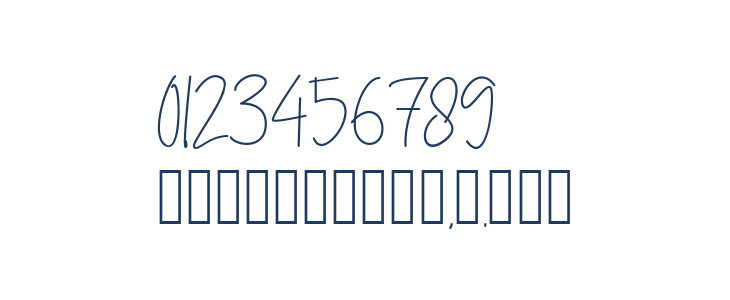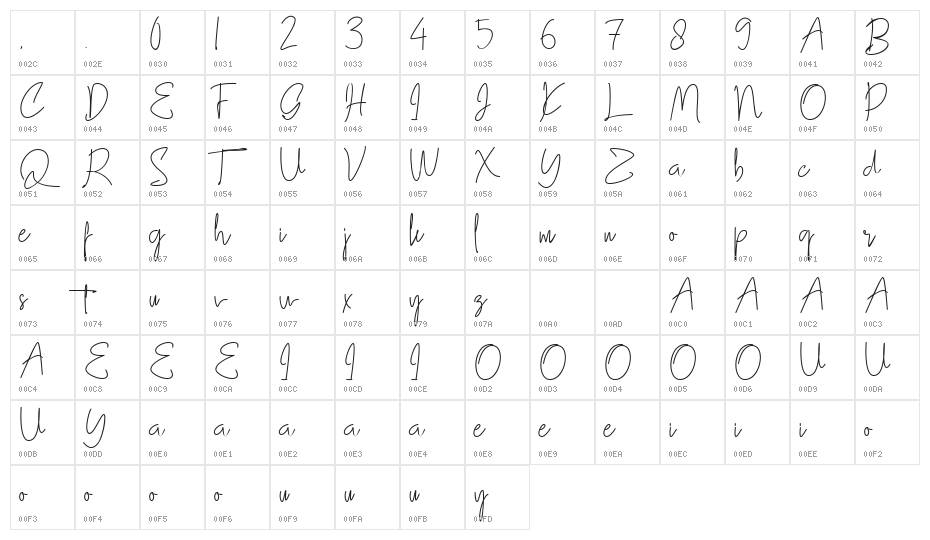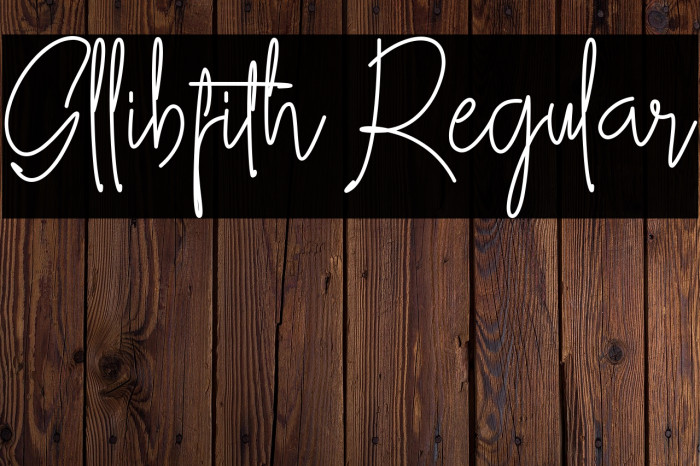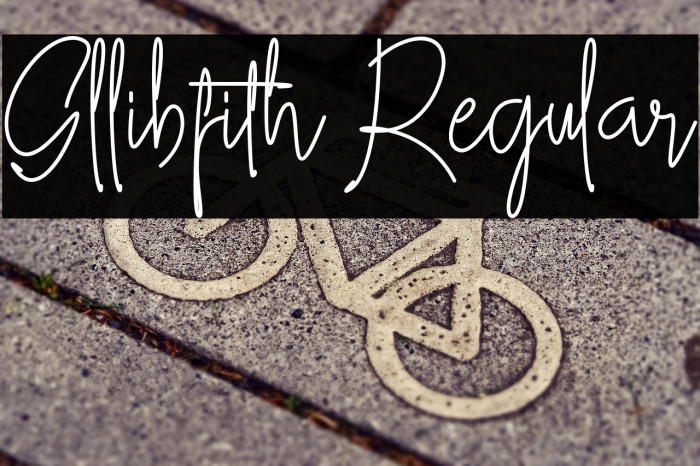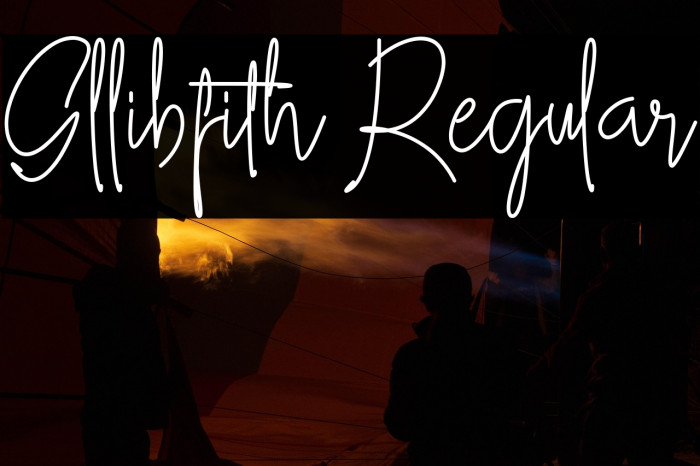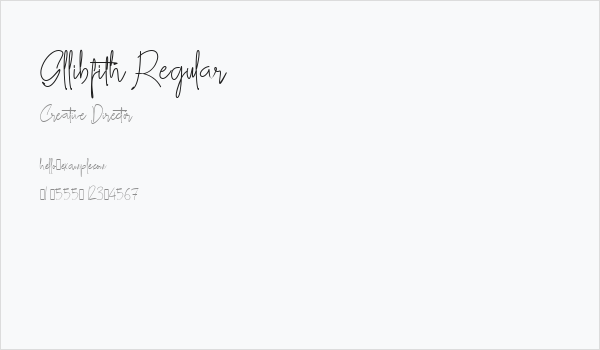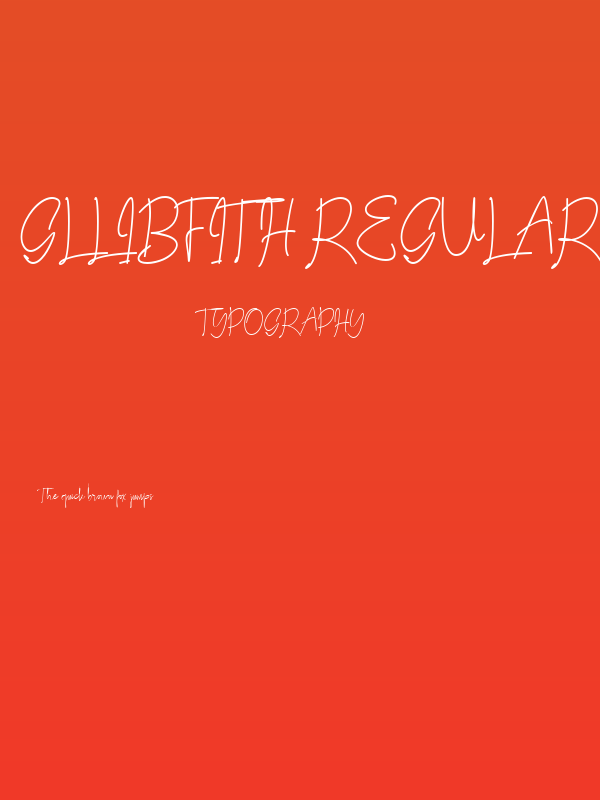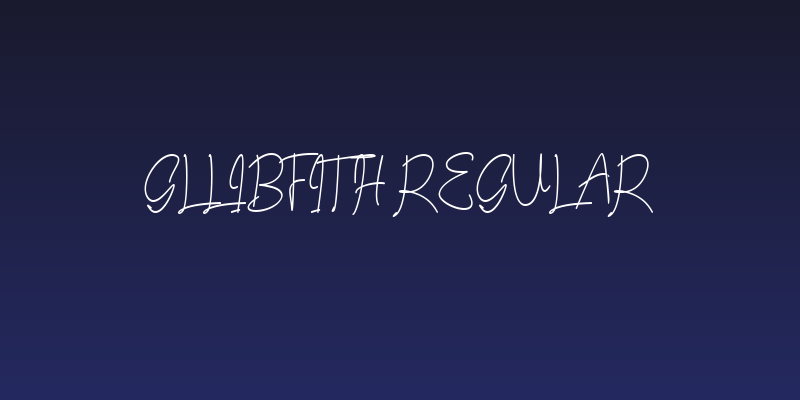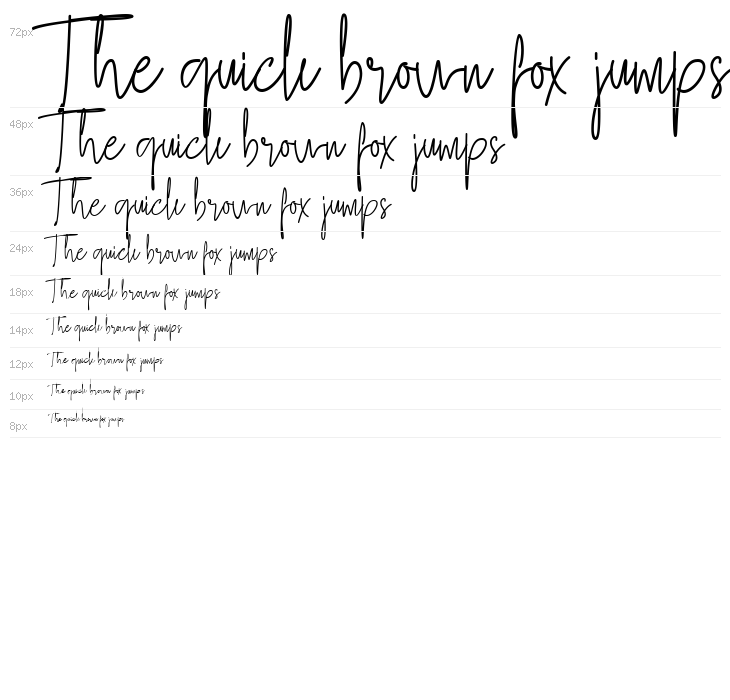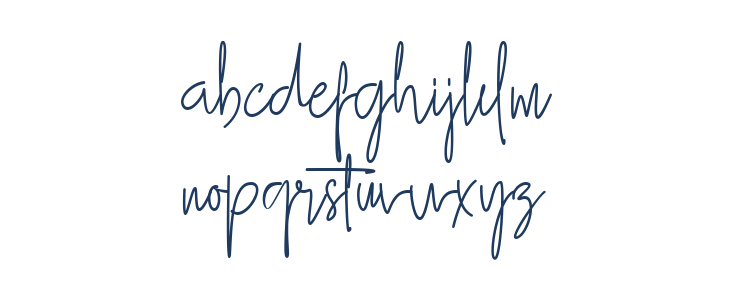
Gllibfith Regular Font
Gllibfith Regular Description
This font features a playful and casual handwritten style, characterized by its flowing and connected letterforms. The uppercase letters are tall and slightly narrow, with a whimsical flair that adds personality to the text. The lowercase letters maintain a consistent flow, enhancing readability while retaining a unique charm. The numerals are rounded and align well with the overall style, providing a cohesive look. The special characters are integrated seamlessly, ensuring versatility in various design contexts. This font's informal and friendly appearance makes it suitable for creative projects where a personal touch is desired.